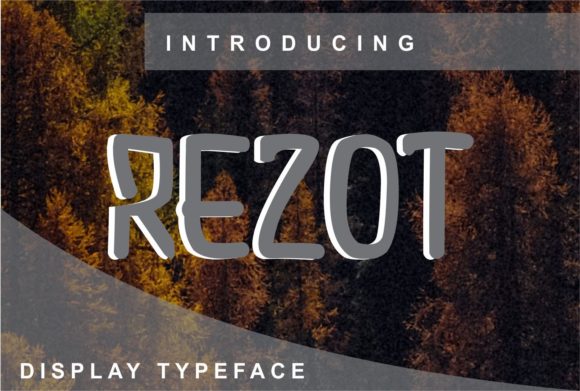
Prepare to captivate your audience with Rezot Font, the ultimate display font that exudes cool, trendy, and adaptable vibes. Dive into a world of endless possibilities as you unleash your imagination and watch your projects come to life with a renewed sense of allure and professionalism.
With Rezot Font, you hold the power to craft business letters that radiate sophistication and leave a lasting impression. Its sharp, clean lines convey a sense of authority and confidence, ensuring your messages stand out from the crowd. But don't limit yourself to business correspondence alone! Let Rezot Font ignite your creativity in presentations, social media posts, branding materials, and more.
Whether you're a seasoned designer or just starting your typographic journey, Rezot Font is your perfect companion. Its user-friendly nature makes it a breeze to incorporate into any project, allowing you to achieve stunning results with minimal effort.
Don't settle for ordinary fonts that blend into the background. Embrace the power of Rezot Font and watch your projects soar to new heights of visual appeal and impact. Let your imagination run wild as you explore the boundless possibilities that await you with this versatile display font.